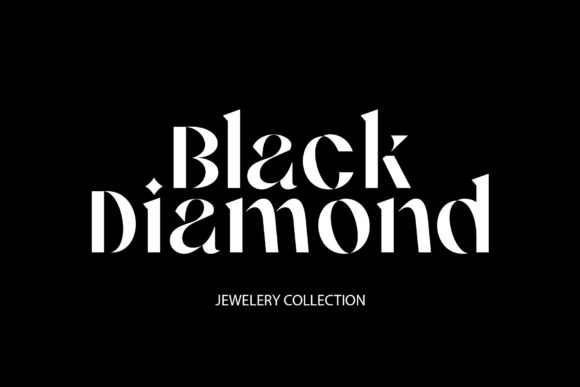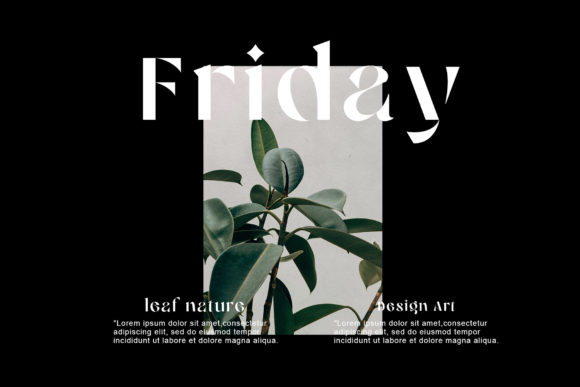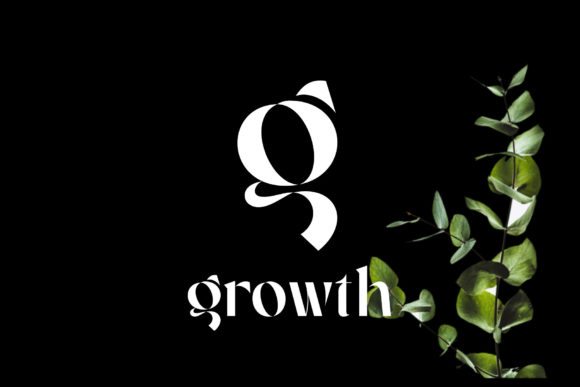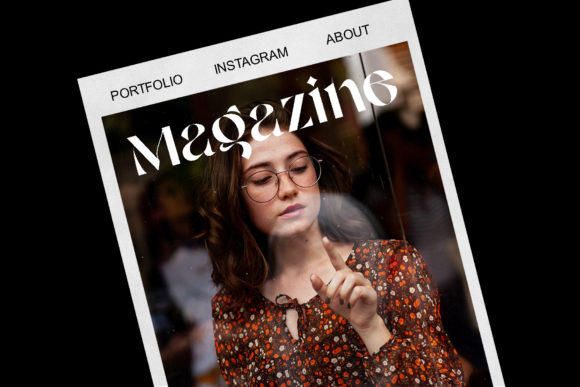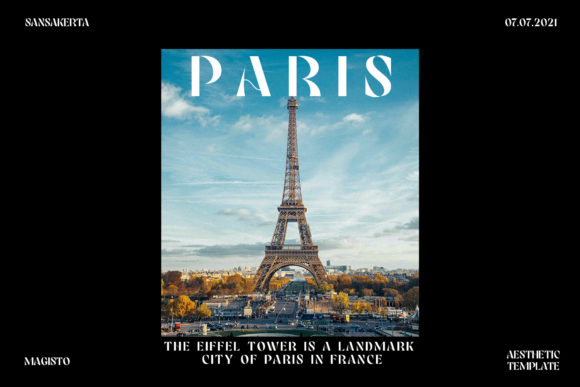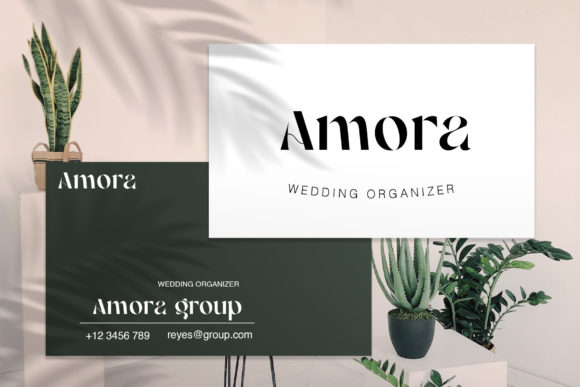
Introduction to Magisto Font
Have you ever stared at a blank page, waiting for the perfect font to spark your creative project? For designers, finding that elusive font can be a game-changer. It’s the moment when the words flow effortlessly, and the design comes alive.
That’s where the Magisto Font comes in – a trendy, distinct display font that’s sure to elevate your designs. With its smooth lines and sophisticated feel, it’s perfect for fashion branding or editorial designs. Whether you’re working on a high-end campaign or a personal project, Magisto Font is a valuable addition to your design resource.
Magisto Font
- High-quality font designed for creative projects, ideal for use in graphic design, digital art, and print materials.
- Features a transparent background, allowing for seamless integration with other design elements and a clean, modern look.
- Magisto Font includes a comprehensive character set, including Latin, Cyrillic, and Greek alphabets, as well as punctuation and symbols.
- Perfect for use in headings, titles, and body text, making it a versatile design element for various creative projects.
Honest Review: Magisto Font
As a designer, I’m always on the lookout for high-quality design resources to elevate my creative projects. Recently, I stumbled upon the Magisto Font, and I’m excited to share my honest review with you.
What works well: ✨ The Magisto Font is incredibly versatile, with a wide range of styles and weights to choose from. I love that it’s perfect for both digital and print projects, and the transparent background option makes it easy to use on any design.
- High-quality font with a wide range of styles and weights
- Transparent background option for easy use on any design
Overall, I’m impressed with the Magisto Font, and I think it’s a great addition to any designer’s toolkit. With its high quality and versatility, it’s definitely worth checking out – especially if you’re looking for a free design resource for your next creative project.
Introduction to Magisto Font
Magisto Font is a high-quality design resource perfect for any creative project. This versatile font is available for free download and can be used with various design platforms. Its transparent background makes it easy to overlay on images, giving your designs a unique touch.
Tips for Getting the Most Out of Magisto Font
To get the most out of Magisto Font, experiment with different font sizes, colors, and layering techniques. You can also combine Magisto Font with other design elements to create unique and eye-catching visuals.
Magisto Font is perfect for various design projects, including logo design, branding, and digital marketing materials. Its high-quality design and transparent background make it a valuable resource for any creative project.